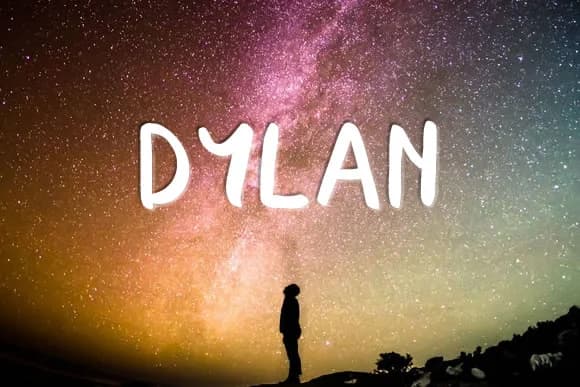
Dylan is a script & handwritten font designed by Dylan Culhane. It includes 231 glyphs, a regular weight, TTF (TrueType) format, and 217 languages. Dylan is free to download; check the license details on this page before commercial use. Script & handwritten fonts like Dylan work best for wedding invitations, greeting cards, signatures, and elegant branding.
Dylan Font is a script font that shines as a display or heading face. Pair it with a clean sans-serif or serif font for body text β the contrast creates a clear hierarchy while the two styles stay balanced and easy to read.
Dylan Font is a script handwritten typeface by Dylan Culhane, ideal for logos, invitations, branding, and creative projects.